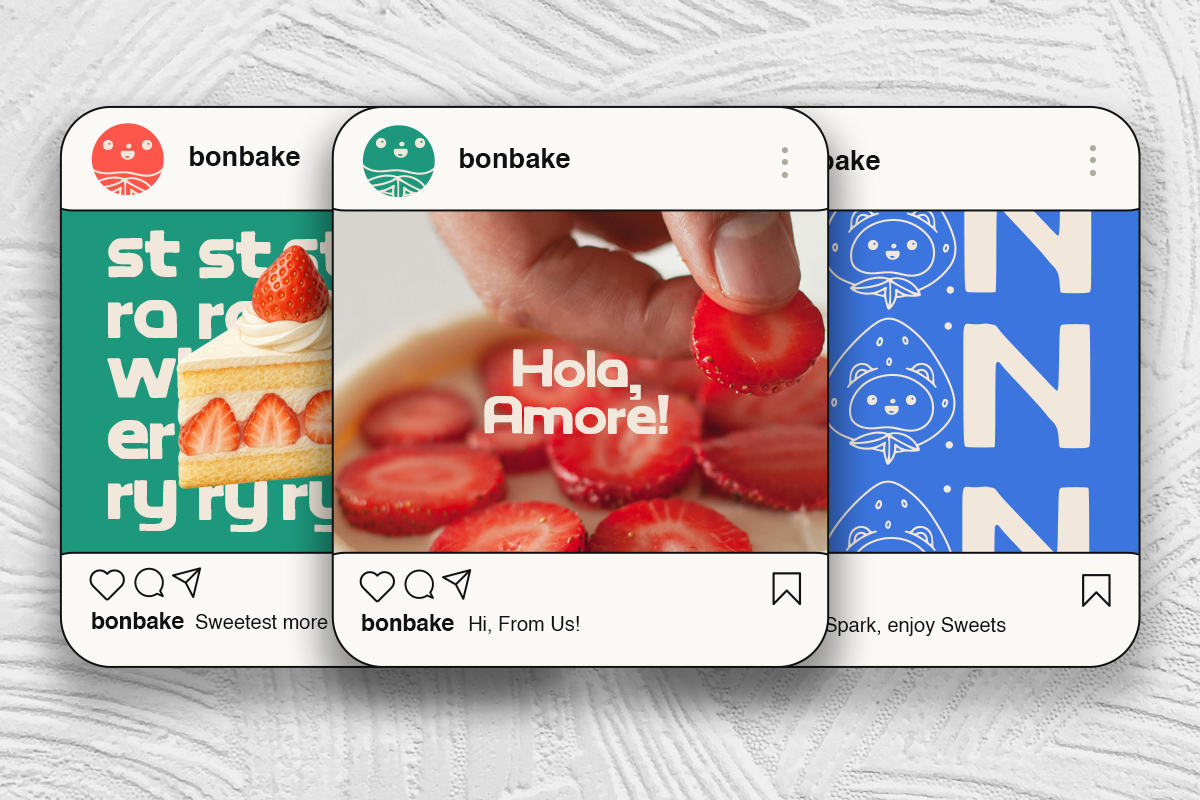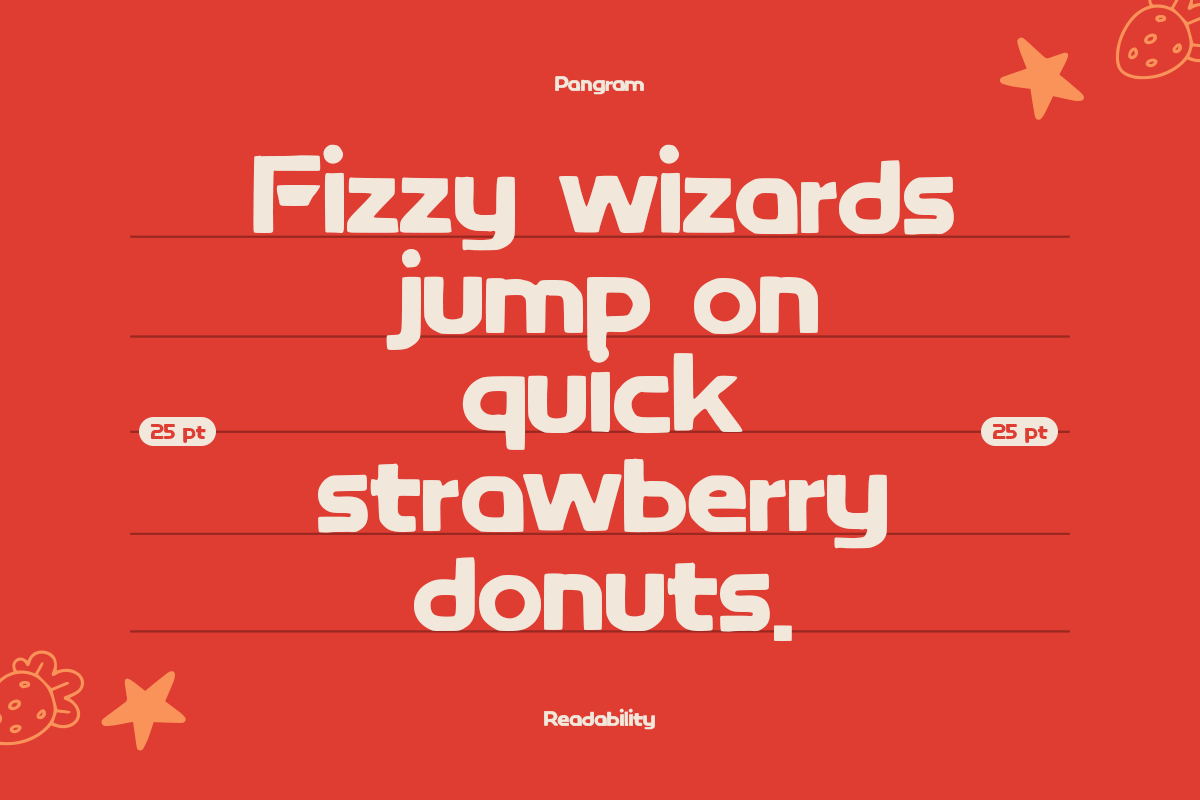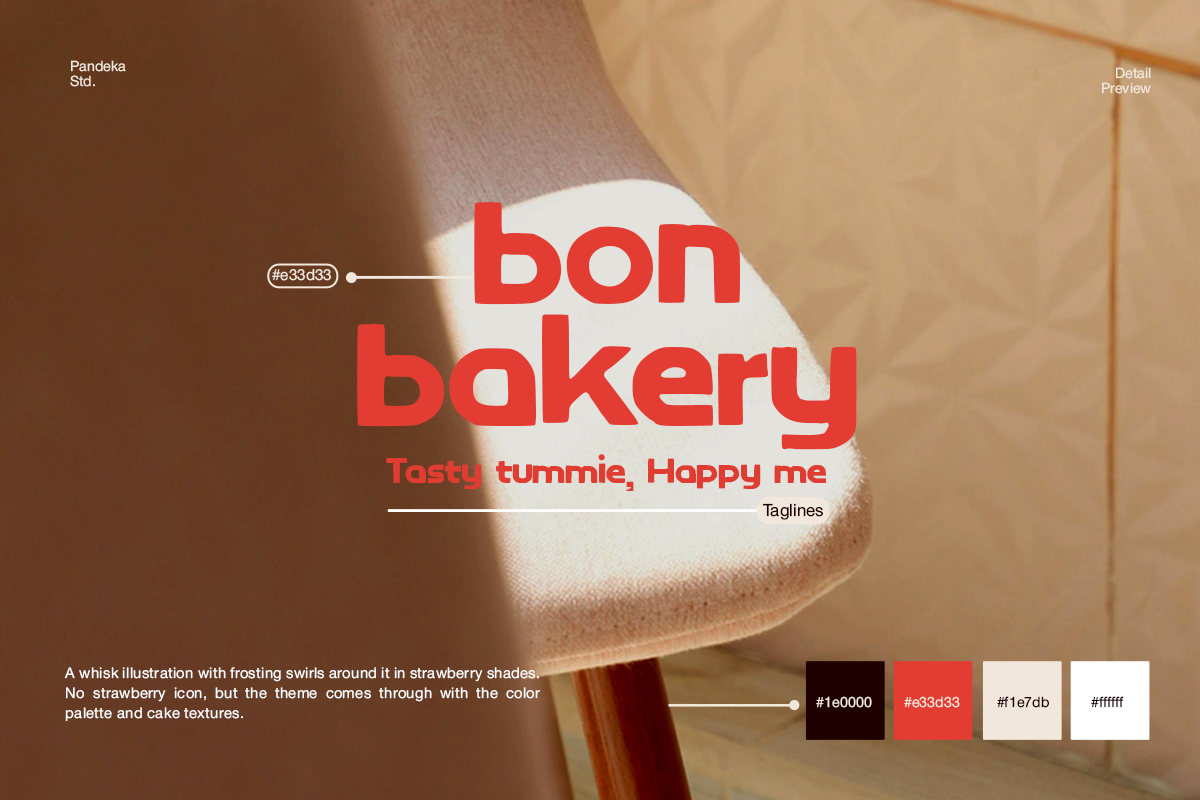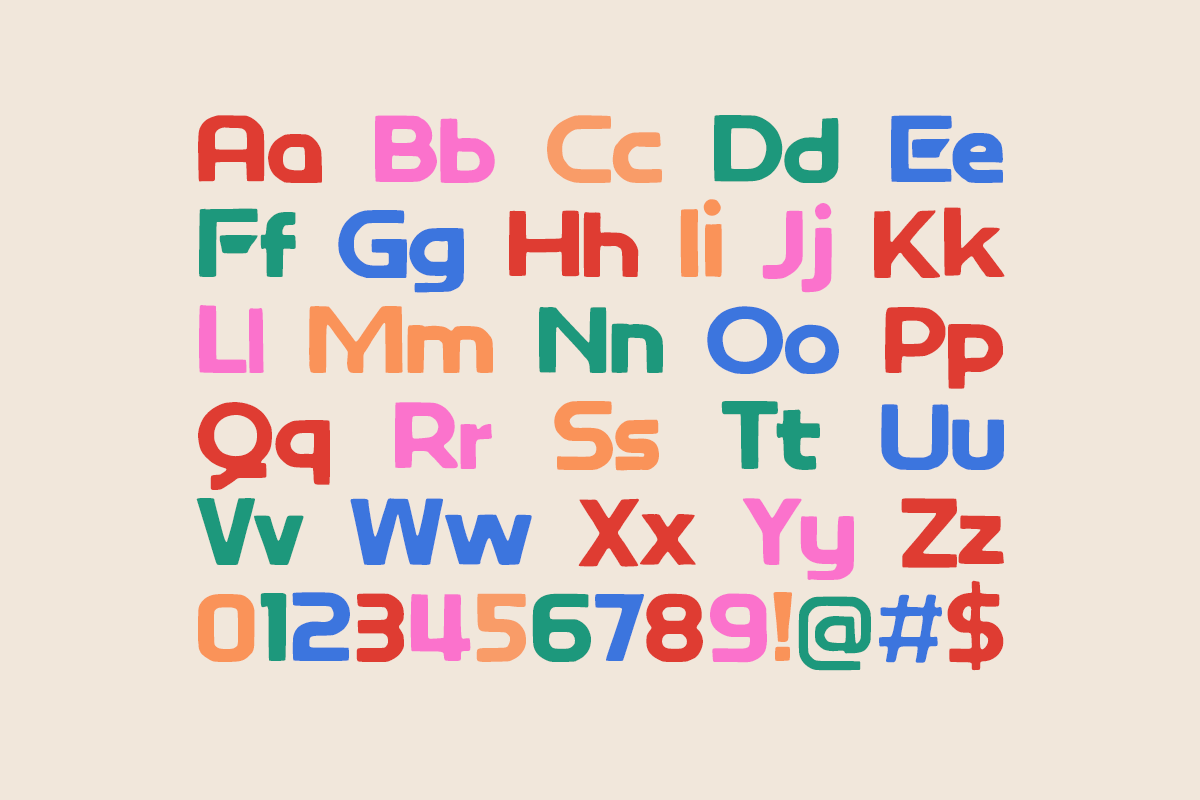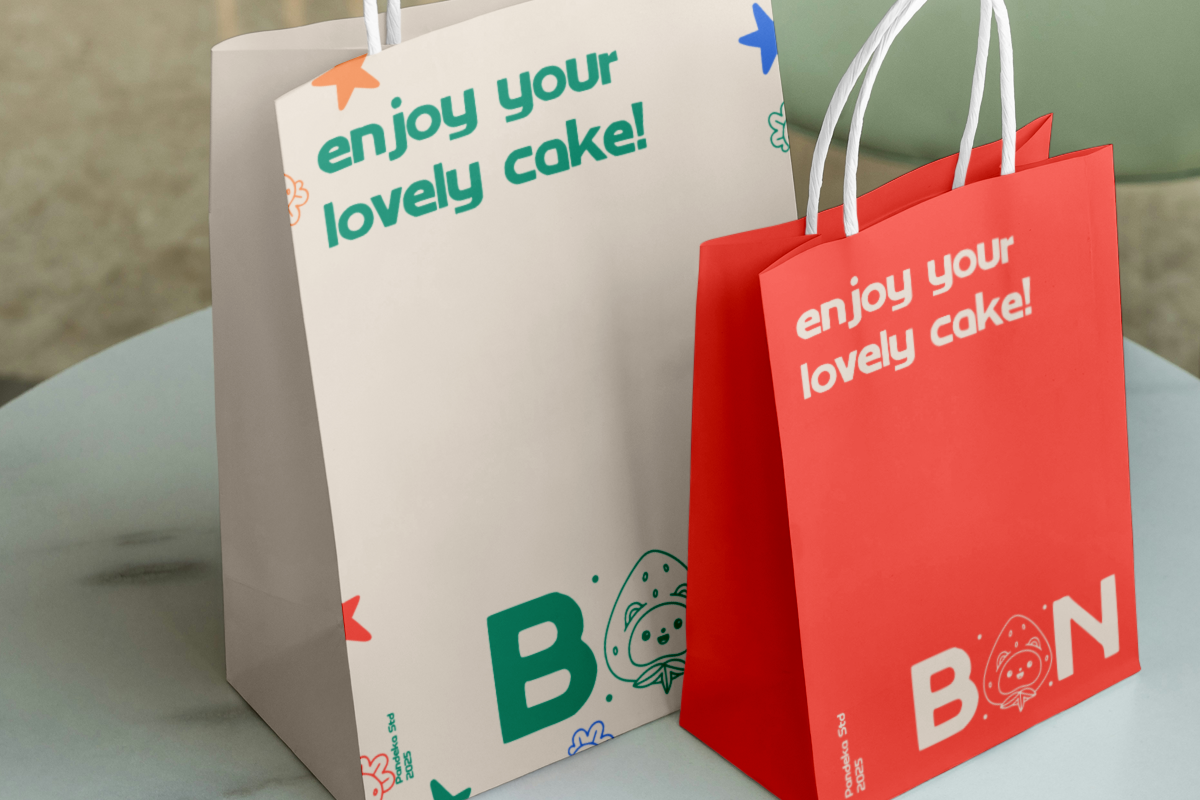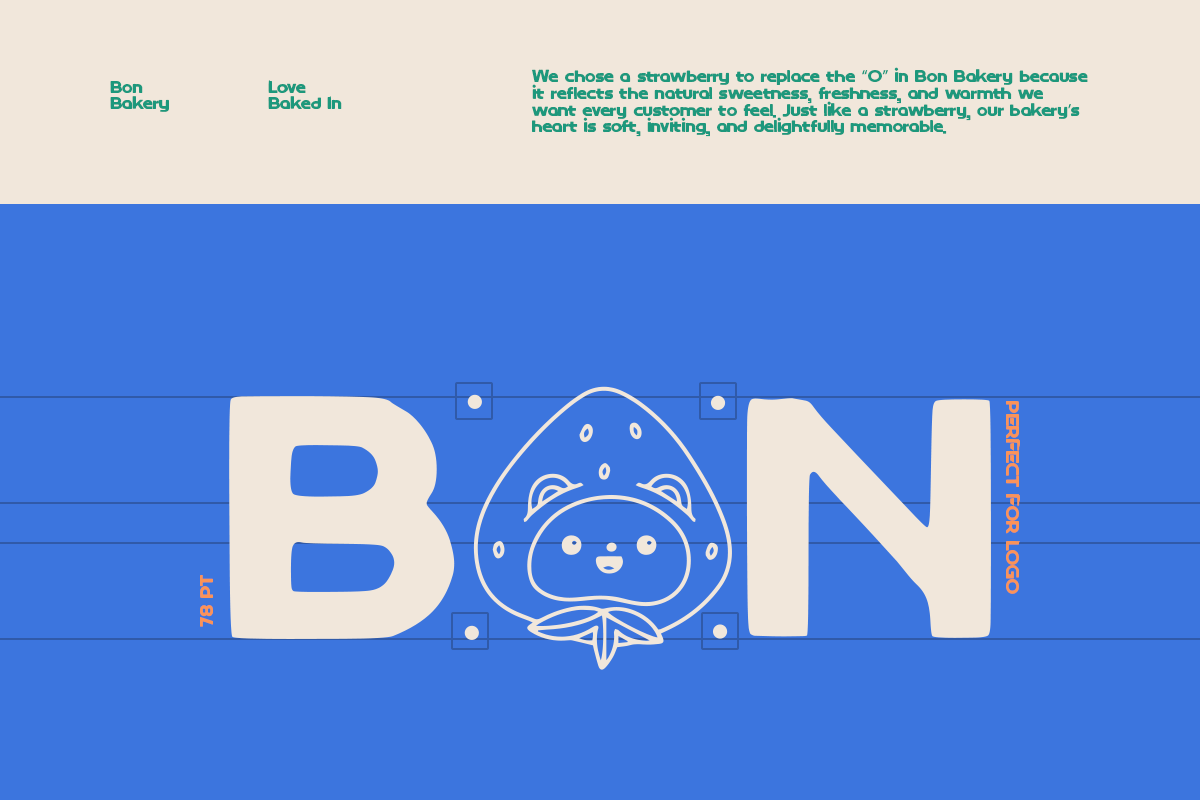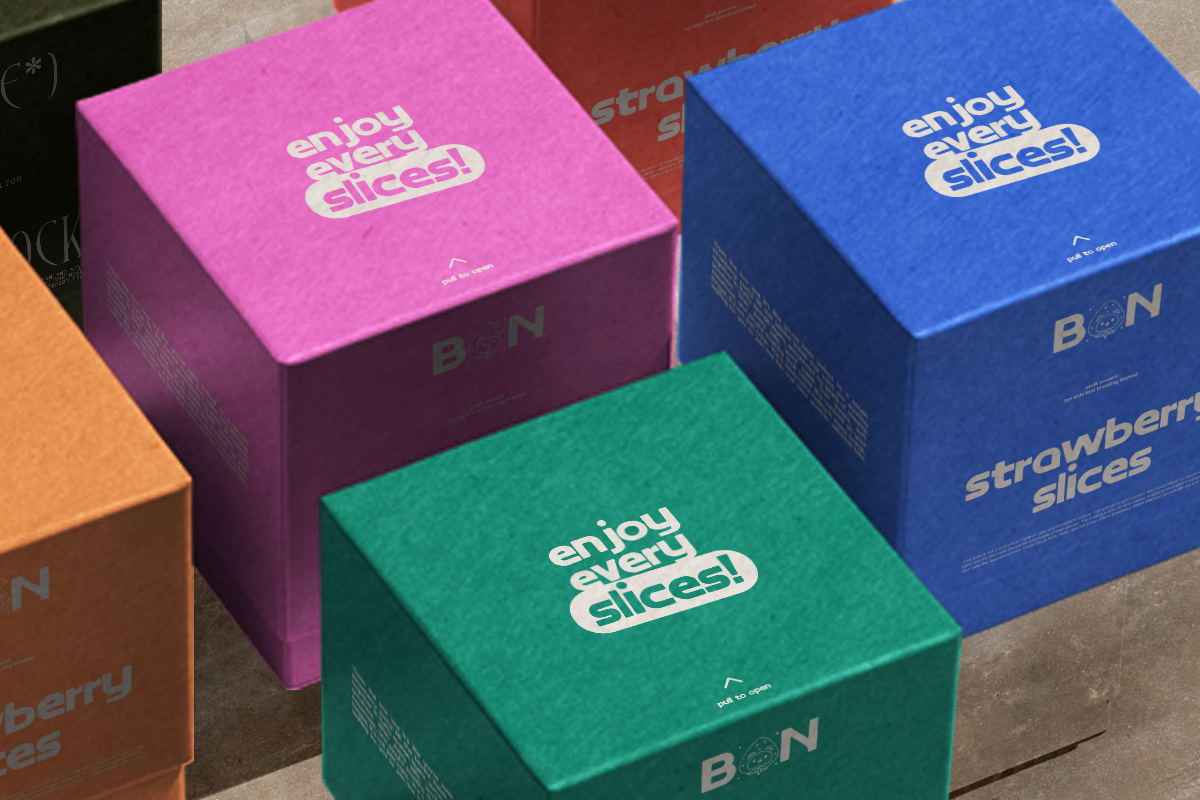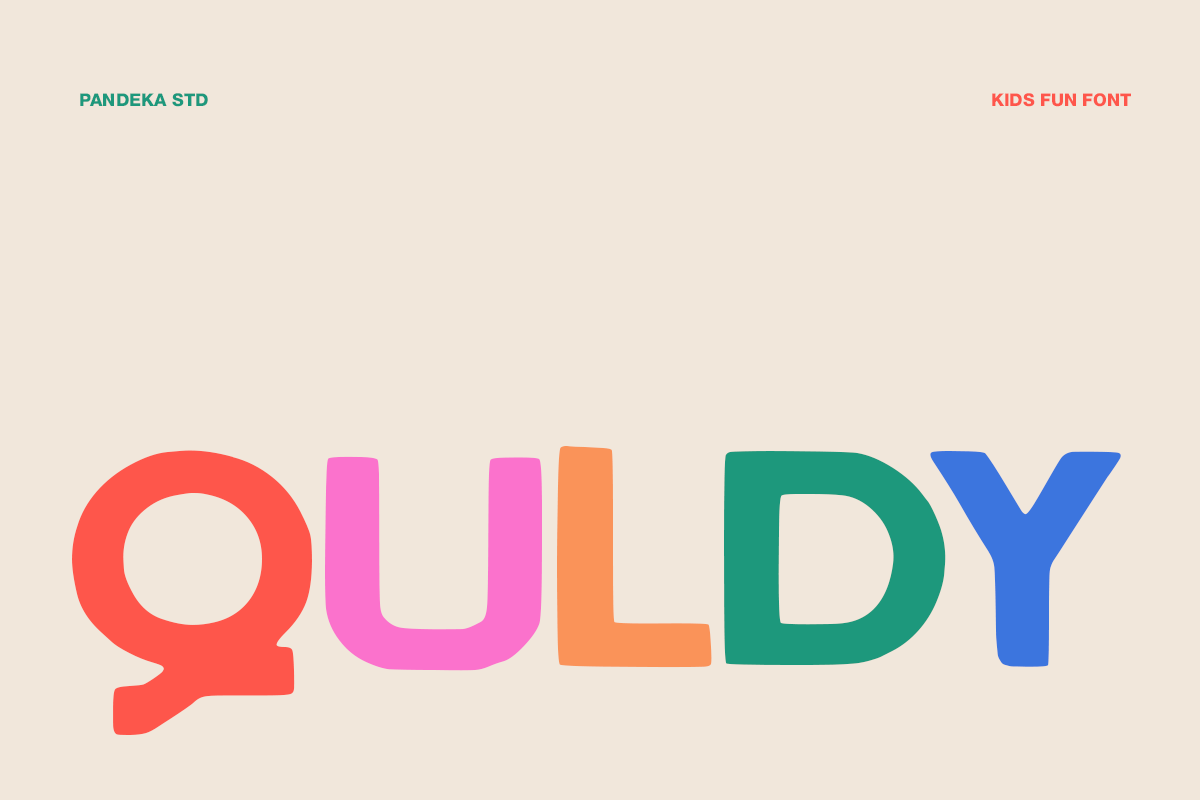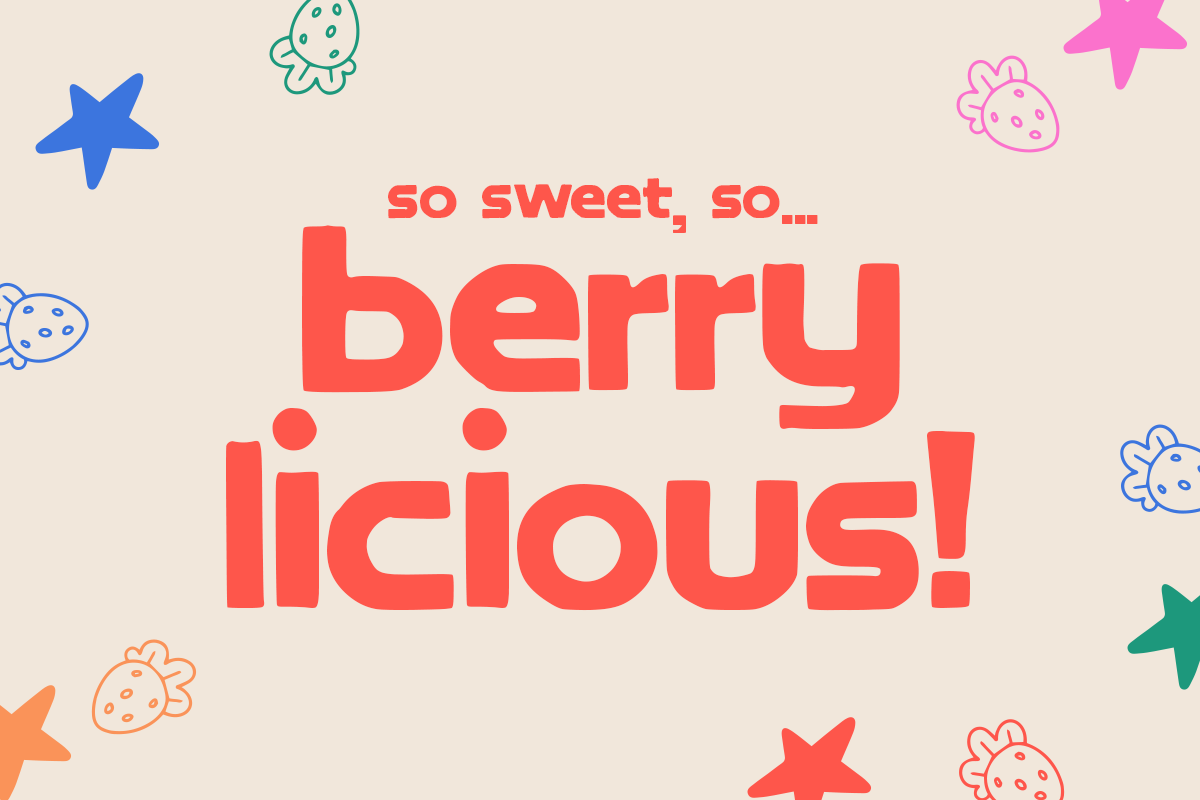
Quldy - Kids Fun Font
Quldy is a cheerful and playful display font designed to bring smiles and positivity to every design. With its rounded shapes, soft curves, and joyful personality, this typeface perfectly captures the spirit of fun, creativity, and childhood imagination.
Ideal for kids’ products, toy packaging, branding, storybooks, birthday invitations, and educational materials, Quldy adds a touch of happiness and friendliness to any project. Its modern yet whimsical style makes it easy to pair with bright colors and bold graphics for an eye-catching visual identity.
Quldy comes in one regular style and supports uppercase, lowercase, numerals, punctuation, and multilingual characters, making it versatile and ready for global use.
- Full Character Set: Uppercase, lowercase, numbers, symbols, and punctuation